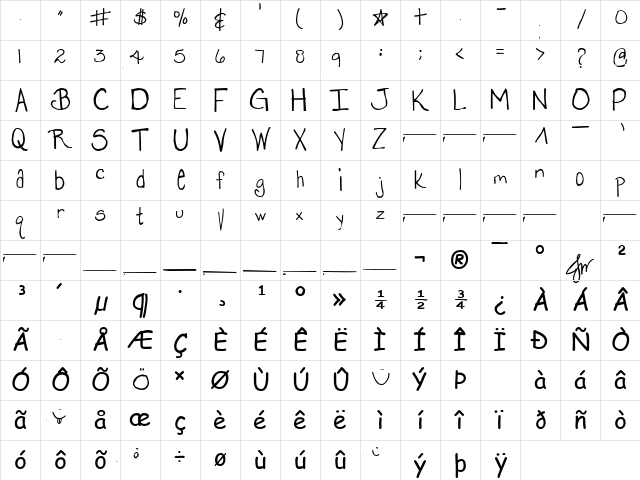
Complete WhateverUneven Regular glyph index. Displaying only characters natively supported by WhateverUneven Regular font.
WhateverUneven is a composed and adaptable typeface that performs quietly and consistently across a wide range of design contexts.